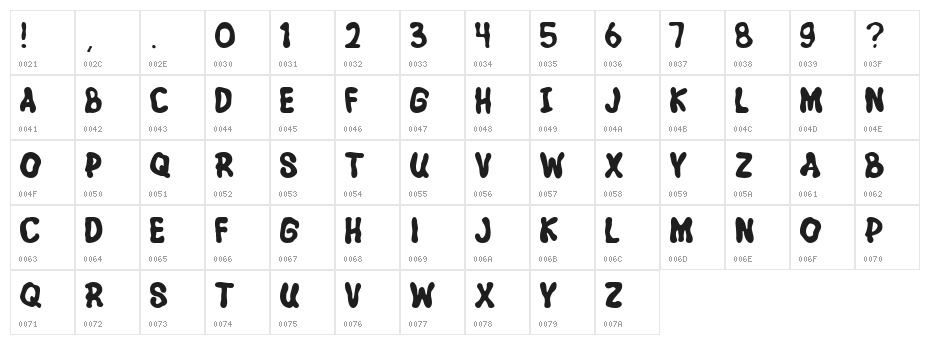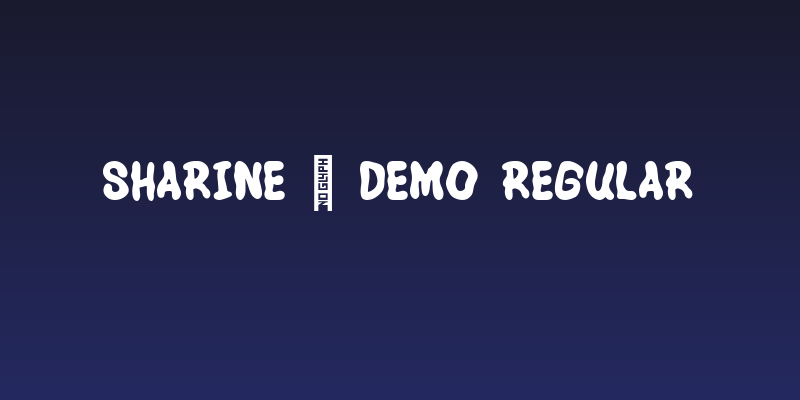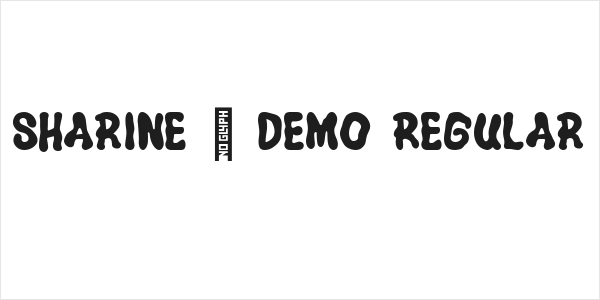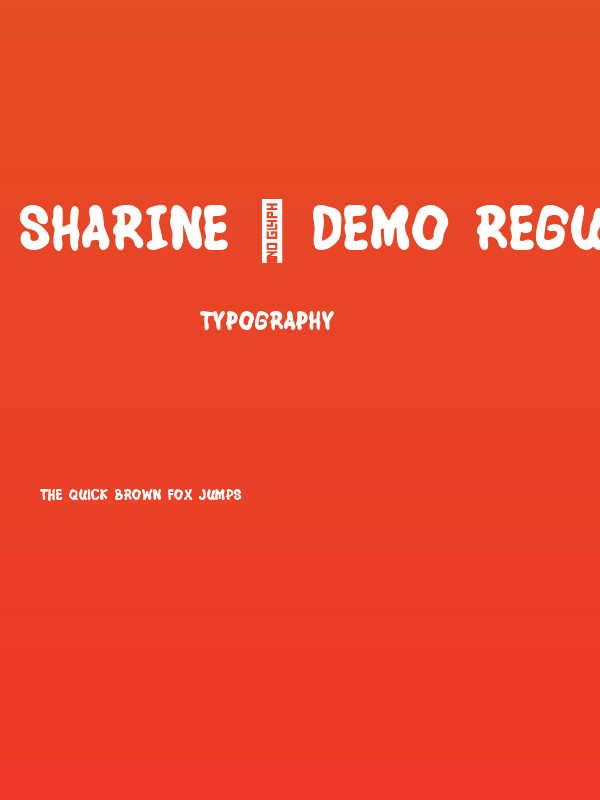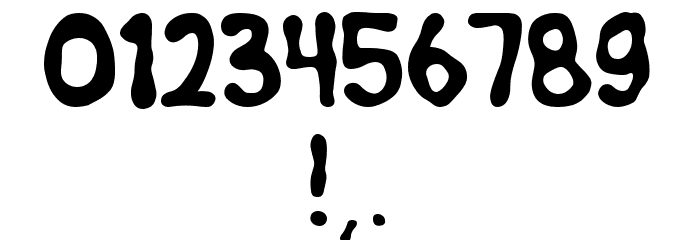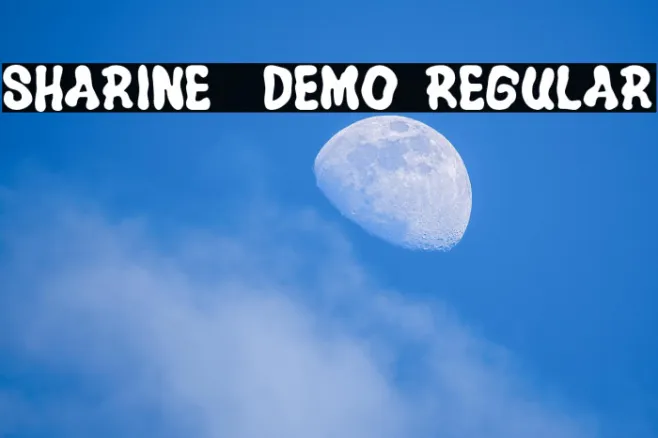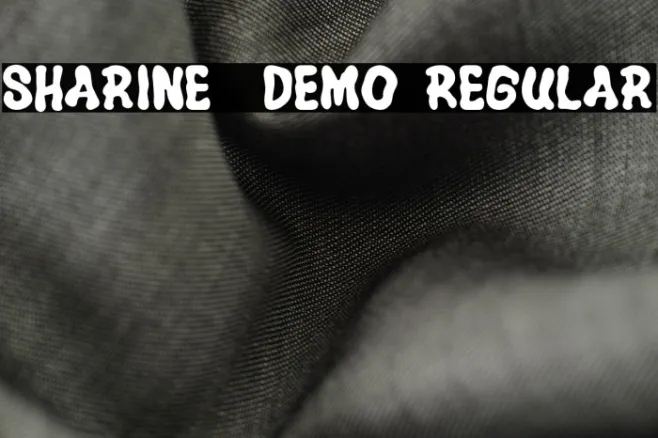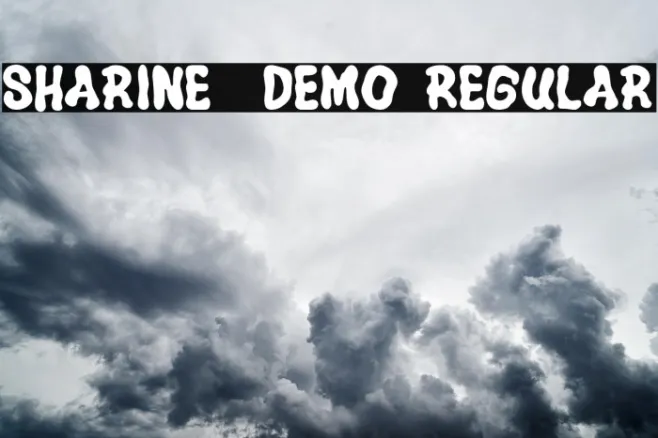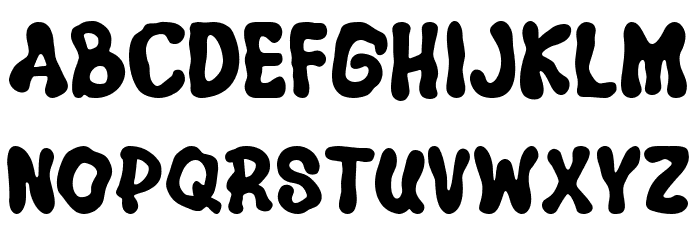
Sharine - DEMO Regular Font
Sharine - DEMO Regular Description
This font features a playful and bold design with rounded, irregular edges that give it a hand-drawn appearance. The characters are thick and have a whimsical, almost cartoonish style, making them stand out with a strong visual presence. The uppercase and lowercase letters maintain a consistent weight, contributing to a cohesive look. The numbers and special characters follow the same playful style, ensuring uniformity across all glyphs. This font is ideal for projects that require a fun and informal touch.
| Overall Style | Playful, Whimsical |
| Use Case | Headlines, Posters, Branding |
| Proposed Projects | Ideal for children's books, playful branding, posters, and casual invitations. |